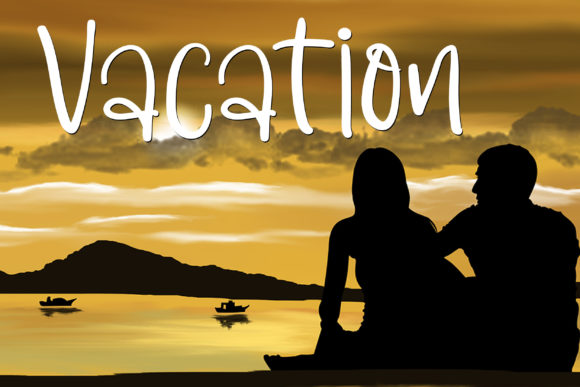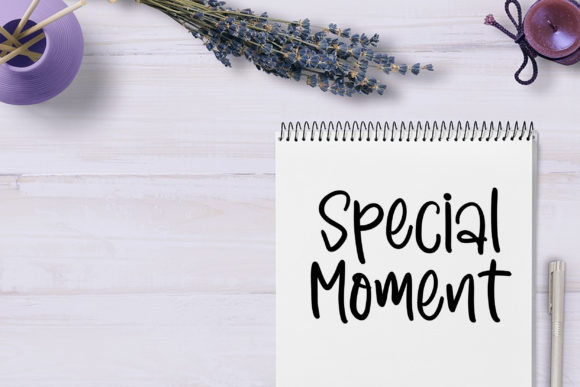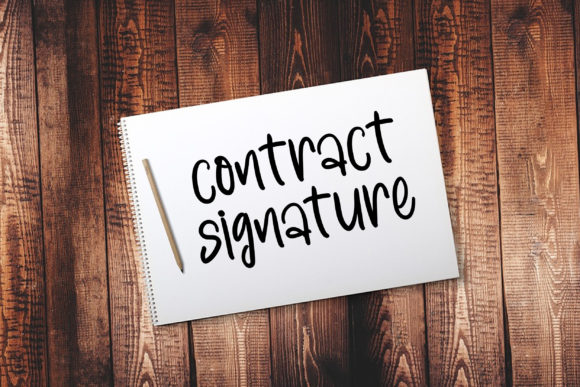
Introduction to Holiday Together Font
Imagine you’re working on a creative project, and the perfect font is just out of reach. You’ve got a vision in mind, but the right typography is missing to bring it all together. That’s where the Holiday Together Font comes in – a stunning and versatile font that can elevate any design to the next level.
As a valuable resource for designers, the Holiday Together Font offers a unique blend of style and simplicity. Whether you’re creating a YouTube banner, a wedding invitation, or a business logo, this font is sure to make your design stand out. With its high-quality design and transparent background, it’s the perfect addition to any creative project.
Key Features of Holiday Together Font
- High-quality design resource ideal for creative projects and festive themes.
- Features a transparent background, allowing for seamless integration with any design.
- Unique, hand-drawn design elements perfect for adding a personal touch to holiday-themed projects.
- Available in a range of sizes, from 12pt to 72pt, to suit various design needs.
- Resolution: 300 DPI, ensuring crisp and clear display on high-resolution screens.
- Perfect for use in digital and print projects, including greeting cards, posters, and social media graphics.
Honest Review: Holiday Together Font
As a designer, I’m always on the lookout for high-quality design resources that can elevate my creative projects. Recently, I stumbled upon the Holiday Together Font, and I’m excited to share my honest review with you.
Here’s what works well: ✨ The font is perfect for creating festive and joyful designs, with a playful and whimsical feel that’s sure to get you in the holiday spirit. The font is available for free download, which is a major bonus. I also appreciate the transparent background, which makes it easy to customize and use in a variety of design contexts.
Now, here are some limitations: ⚠️ While the font is great for holiday-themed designs, it may not be the best choice for more formal or professional projects. Additionally, the font’s playful style may not be suitable for all audiences, so be sure to use your discretion when choosing the right font for your project.
Overall, I’m impressed with the Holiday Together Font, and I think it’s a great addition to any designer’s toolkit. With its high-quality design and free download option, it’s definitely worth checking out.
Here are some use cases where the Holiday Together Font shines:
- Creating festive holiday cards and invitations
- Designing holiday-themed social media graphics and ads
- Developing a playful and whimsical brand identity
Tips for Getting the Most Out of the Holiday Together Font
To get the most out of the Holiday Together Font, use it in conjunction with other design elements, such as images and graphics, to create a visually appealing design. Experiment with different font sizes, colors, and styles to find the perfect combination for your creative project.
The Holiday Together Font is perfect for a variety of use cases, including holiday cards, invitations, and social media graphics. It’s also ideal for creating designs for special occasions, such as weddings and birthdays.